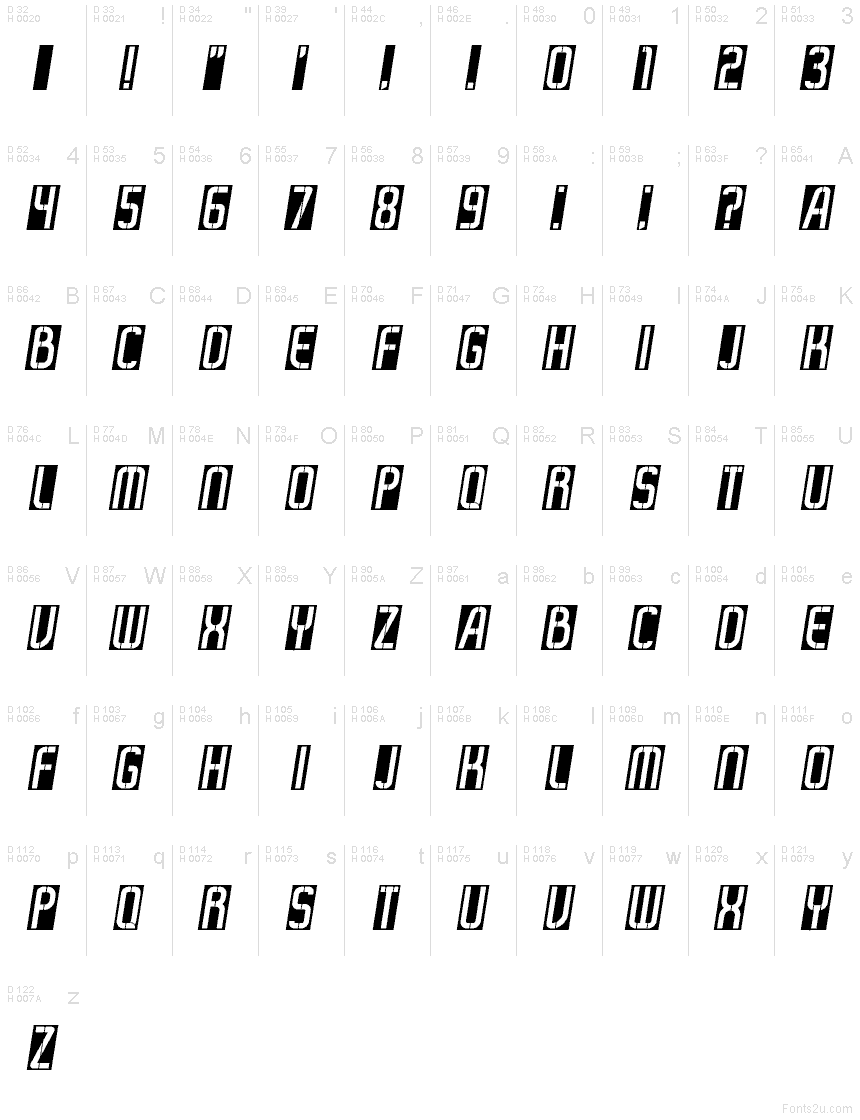
Hour And Date Italic
Hour And Date Italic font by Vladimir Nikolic is a free futuristic display typeface that looks like it jumped straight off a digital scoreboard. Tall, condensed letters are sliced by subtle vertical breaks, echoing LED segments while the forward lean adds a sense of speed and countdown urgency. The result feels crisp and mechanical, yet bold enough to command attention on a dark background or over high-energy imagery.
Using Hour And Date Italic, you can give sci‑fi titles, racing posters, esports branding, tech event graphics, streaming overlays, and app splash screens a clear time-and-tech vibe. This free font shines when set large with a bit of extra letterspacing, then paired with a clean geometric sans serif for supporting text.